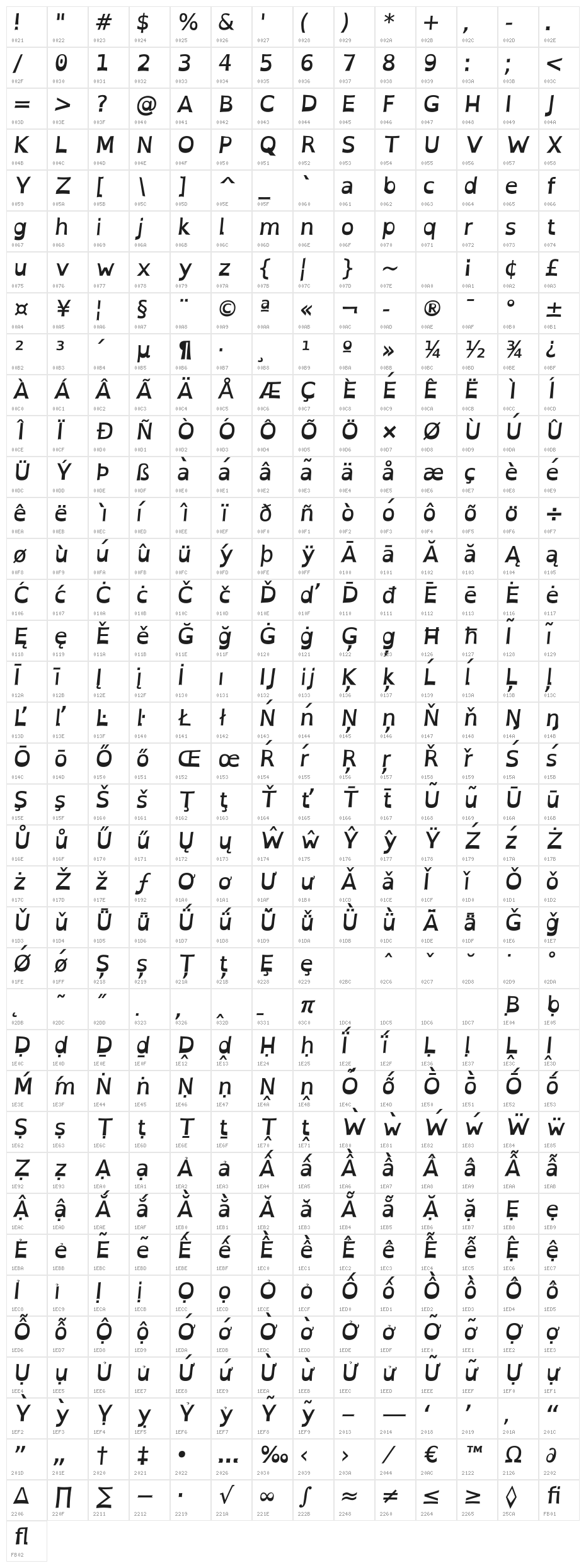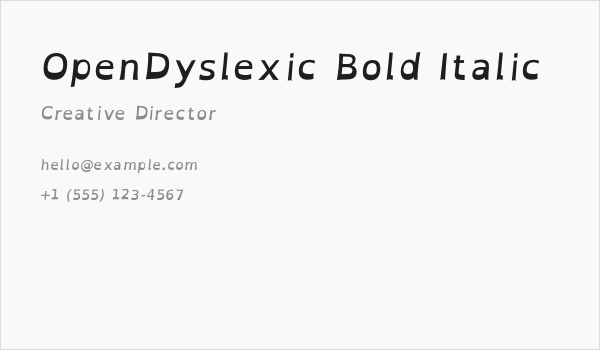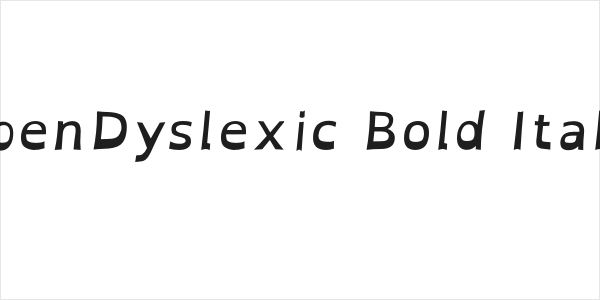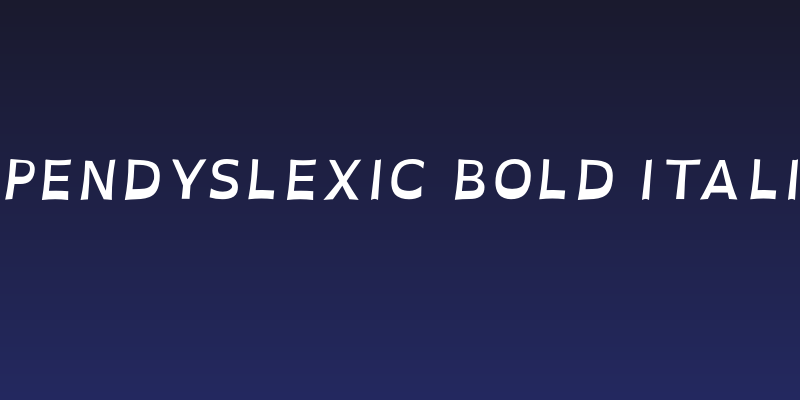
OpenDyslexic Bold Italic Font
OpenDyslexic Bold Italic Description
This font is designed with accessibility in mind, featuring unique letterforms that help distinguish each character to aid readability, particularly for individuals with dyslexia. The letters have a bold weight and an italic slant, which adds a dynamic and modern touch. The characters are slightly wider at the bottom, providing a sense of stability and grounding. The overall style is clean and functional, with a focus on clarity and ease of reading. The numbers and special characters are consistent with the letterforms, maintaining the same bold and italic characteristics.
| Use Case | Body text, Educational materials, Accessible design |
| Proposed Projects | Ideal for educational materials, accessible web design, and any project requiring enhanced readability. |